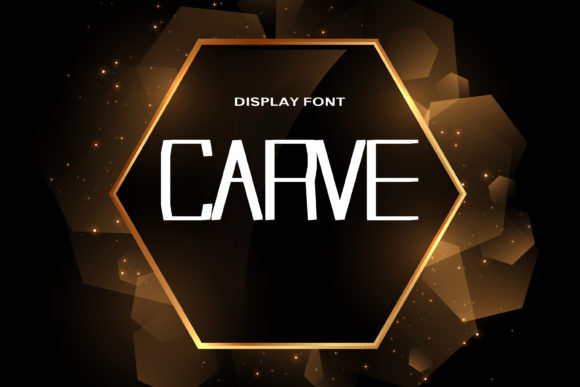
In the realm of digital design, fonts hold the power to transform the ordinary into the extraordinary. They are the silent symphony, the unsung heroes that orchestrate the visual experience, captivating the eyes and igniting the imagination. Among this symphony of fonts, Carve Font stands tall, a bold and uniquely shaped display font that commands attention and leaves an indelible mark.
Carve Font is not just a collection of letters; it's an artistic expression, a visual masterpiece that elevates your designs to new heights. Its sharp edges and dynamic curves create a sense of movement and energy, drawing the viewer deeper into your creative world. Whether you're crafting a futuristic website, designing a captivating social media post, or creating an eye-catching logo, Carve Font is your perfect companion.
With Carve Font, you'll unlock a world of possibilities, where creativity knows no bounds. Its versatility extends across a vast spectrum of design projects, from sleek and modern layouts to bold and unconventional concepts. Unleash your imagination and let Carve Font guide you on a journey of visual storytelling.
This remarkable font is the brainchild of DmDesignsStoreArt, a visionary collective of artists and designers who pour their hearts and souls into creating typographic masterpieces. Their passion for excellence shines through in every curve and stroke of the Carve Font, ensuring that it meets the highest standards of quality and aesthetics.
Carve Font is more than just a tool; it's an extension of your creative self. It's a font that reflects your individuality, your unique perspective, and your unwavering commitment to excellence. As you weave your design magic with Carve Font, you'll discover a new level of confidence and creativity, pushing the boundaries of what's possible.
Join the ranks of discerning designers who have embraced the power of Carve Font. Let its bold strokes and captivating curves elevate your work to new heights, leaving a lasting impression on your audience. Embrace the beauty of typography and allow Carve Font to unleash your creative genius.